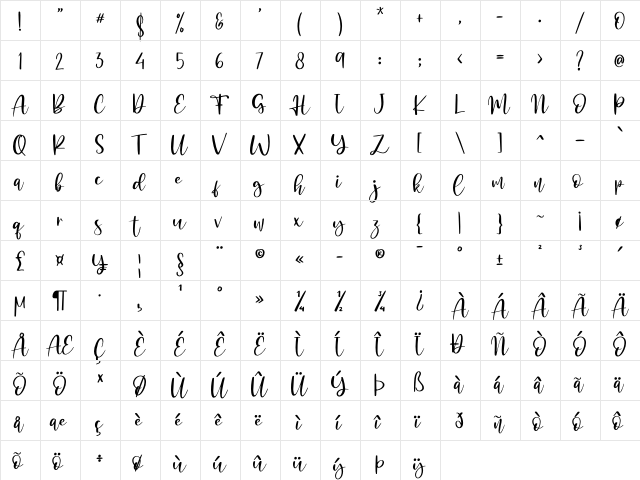
Morning Girls - Personal Use Regular
| Designer | Sarwo Edhi Prayitno |
Design Context for Morning Girls - Personal Use Typeface
Morning Girls - Personal Use is a composed and adaptable typeface that performs quietly and consistently across a wide range of design contexts.